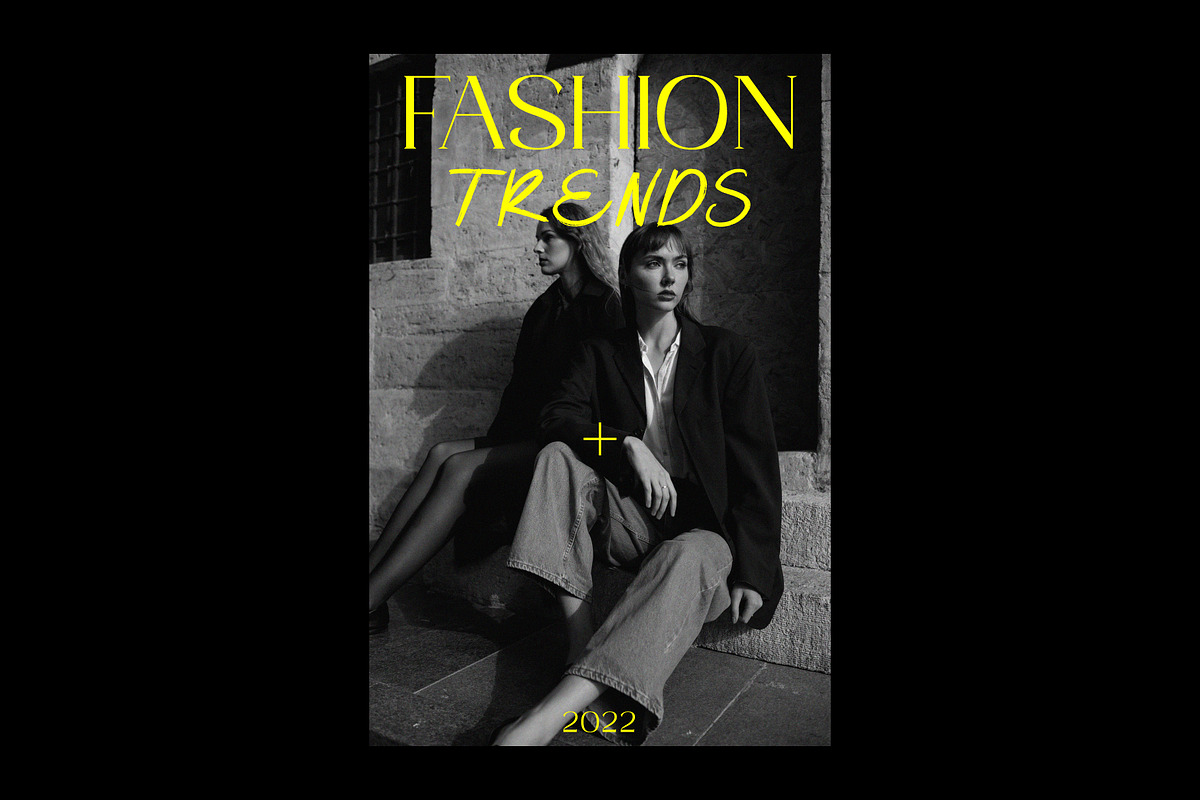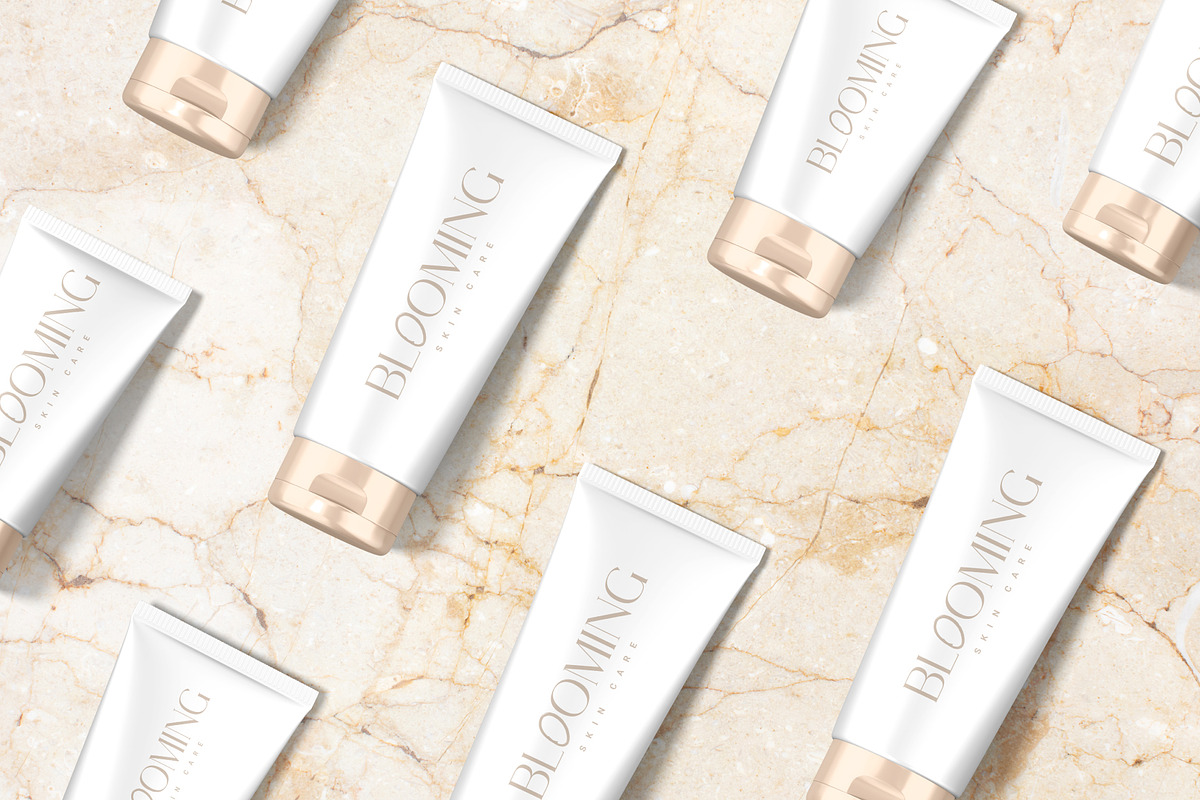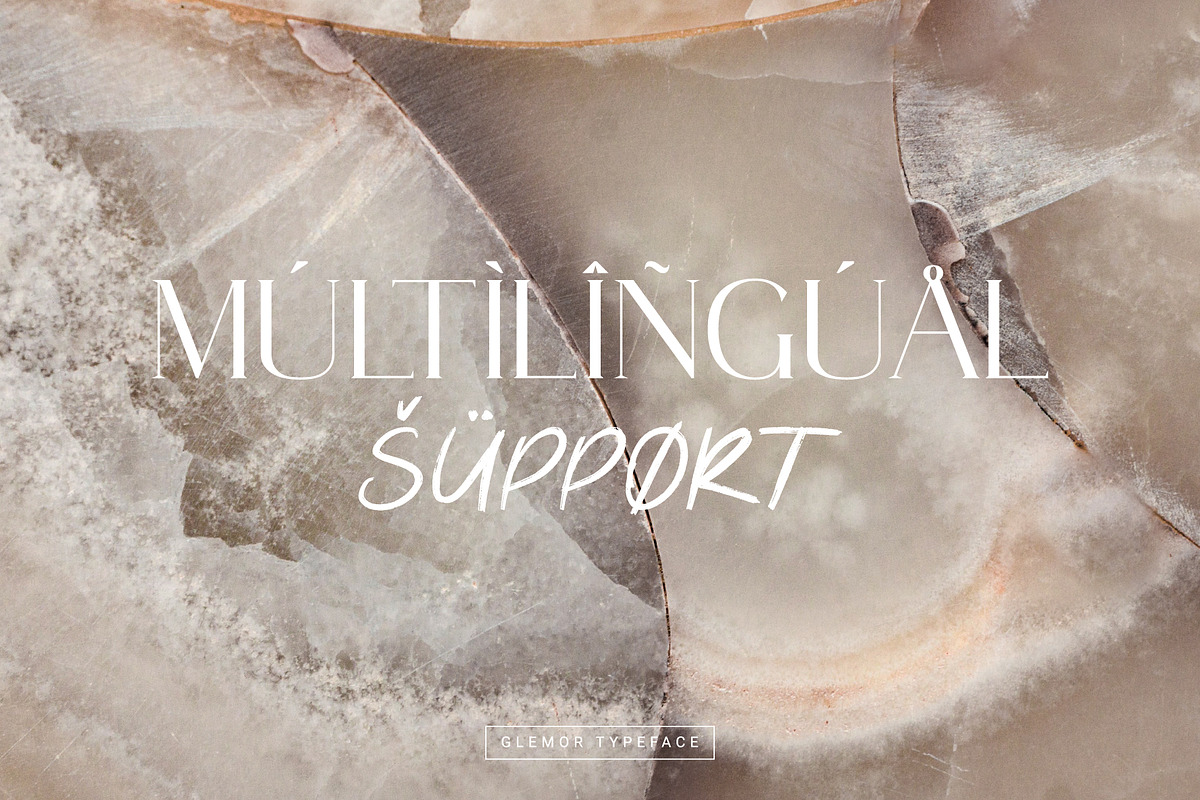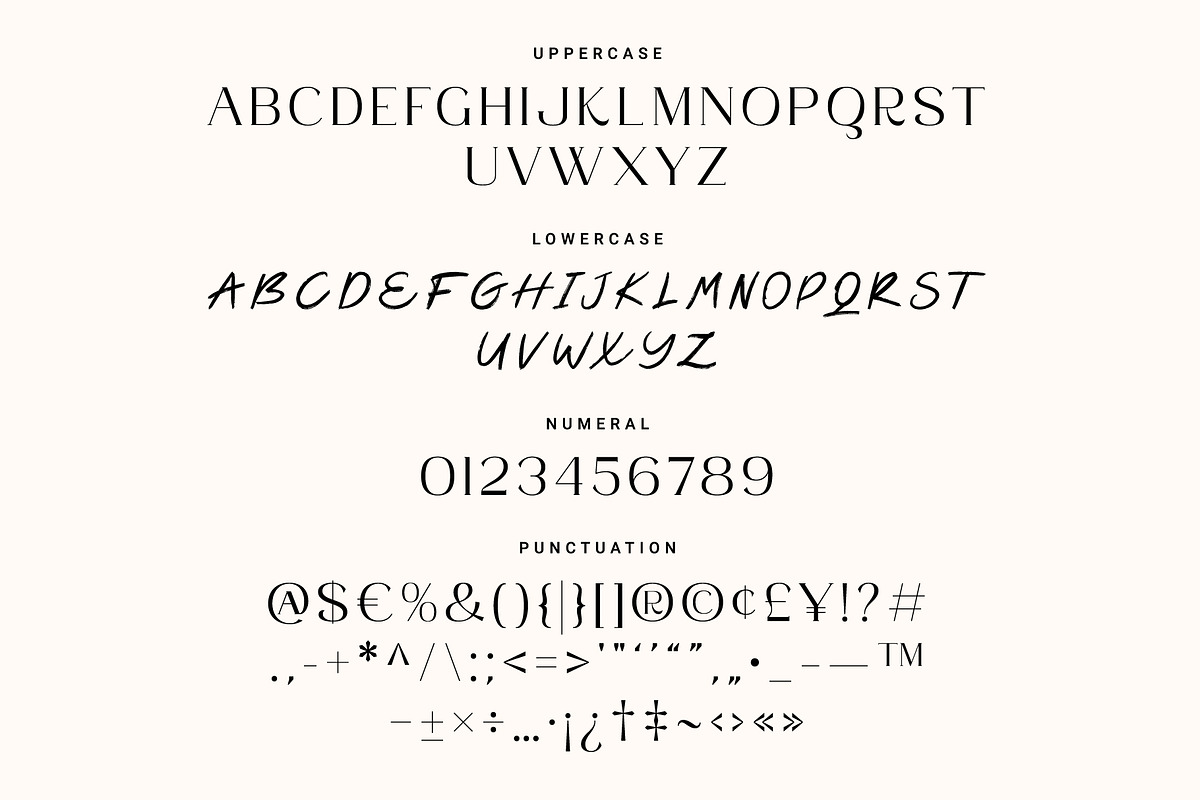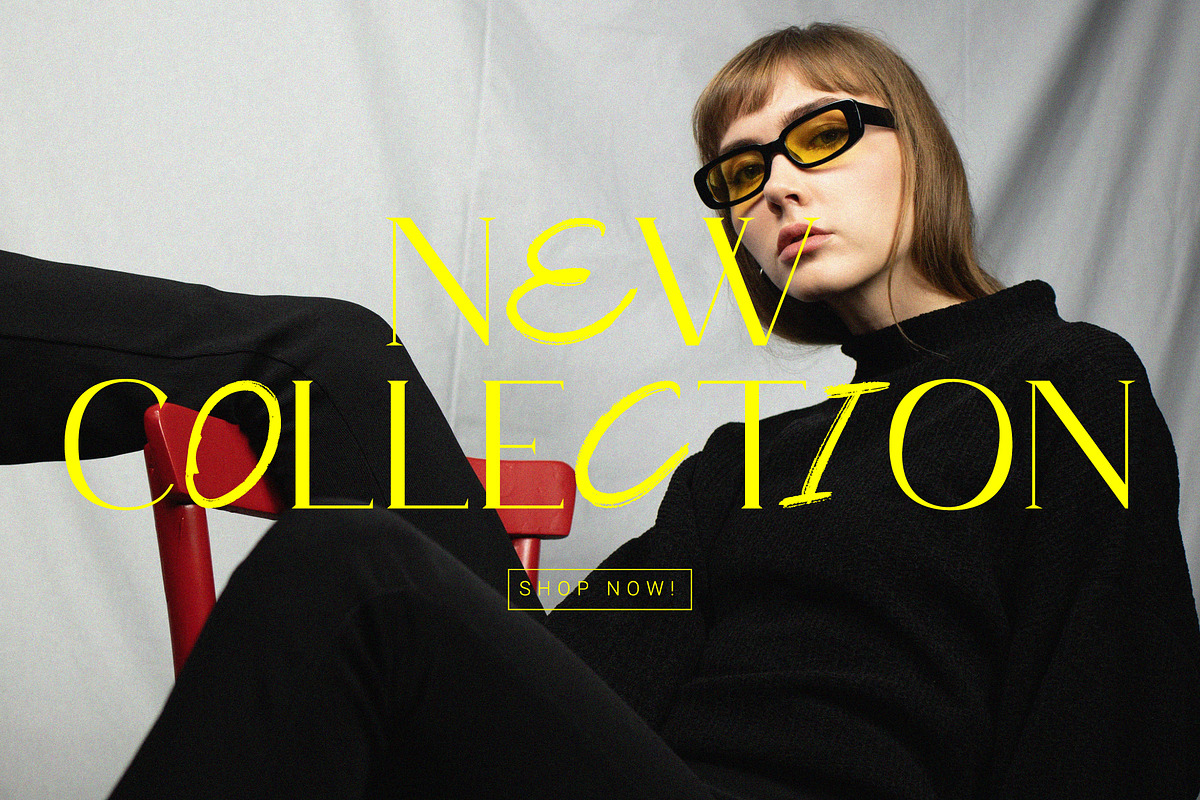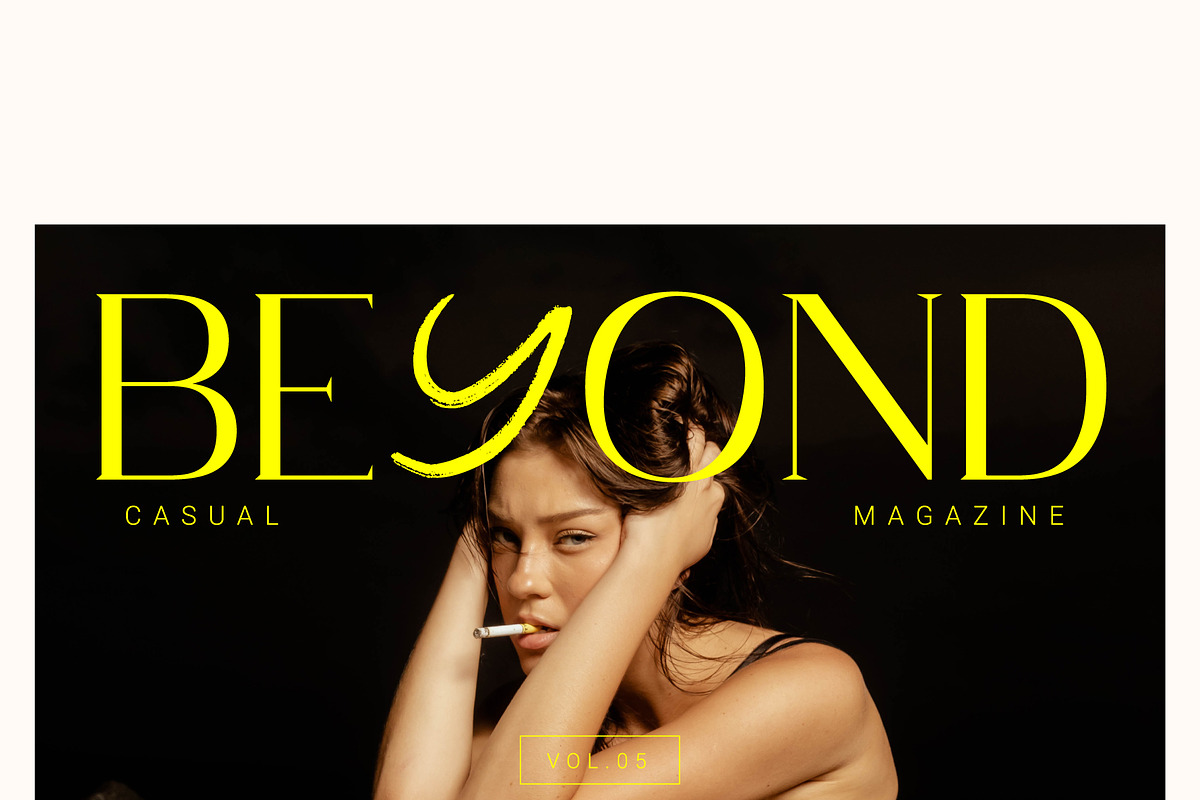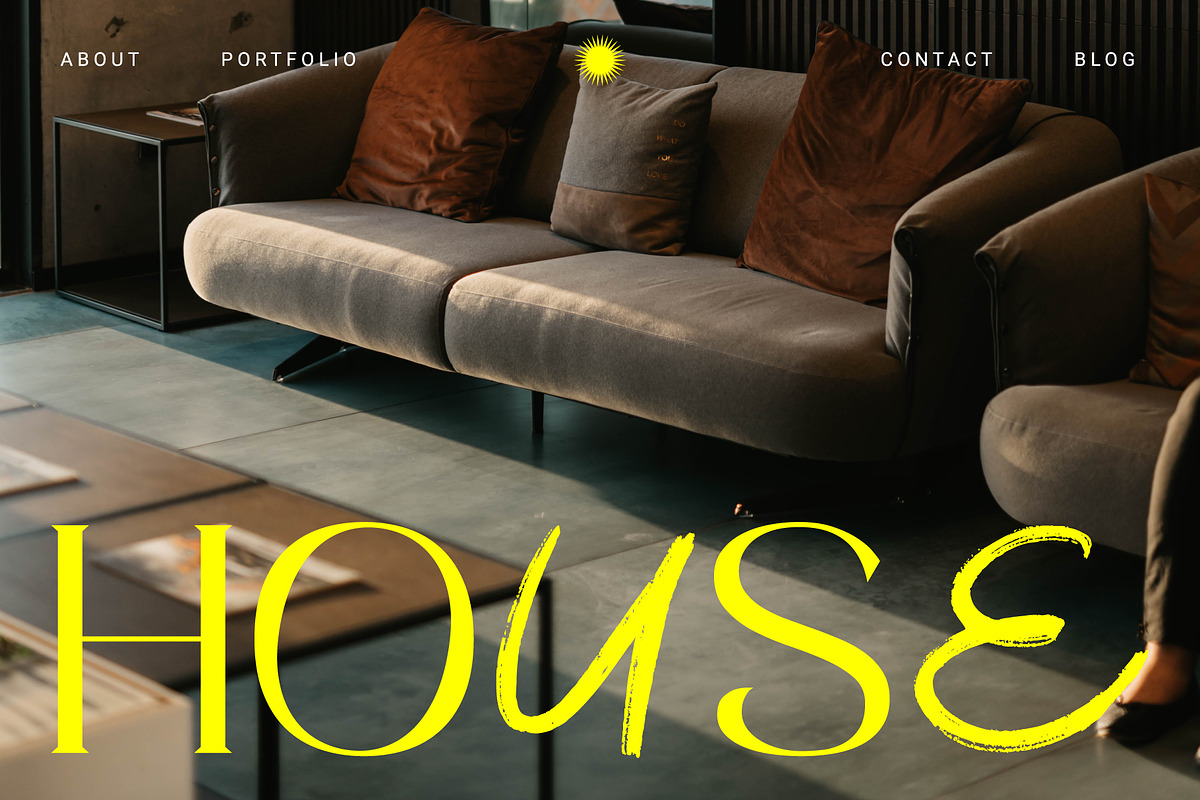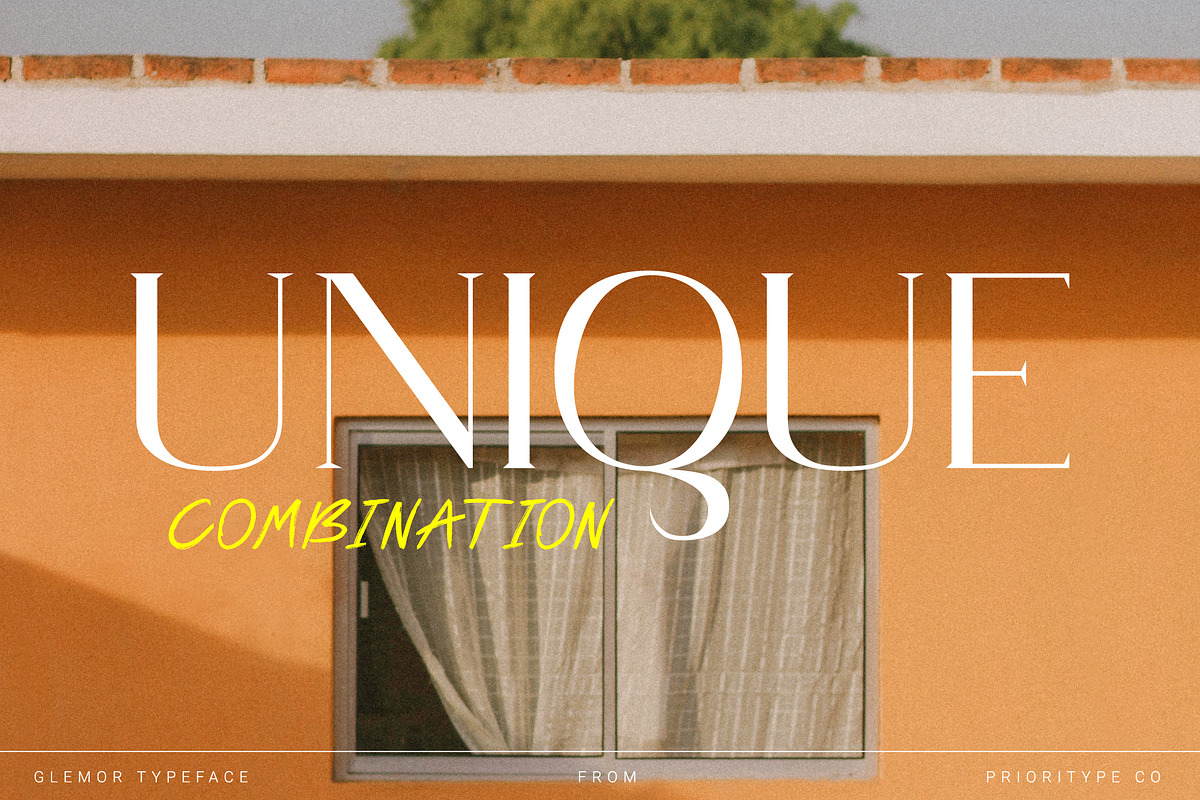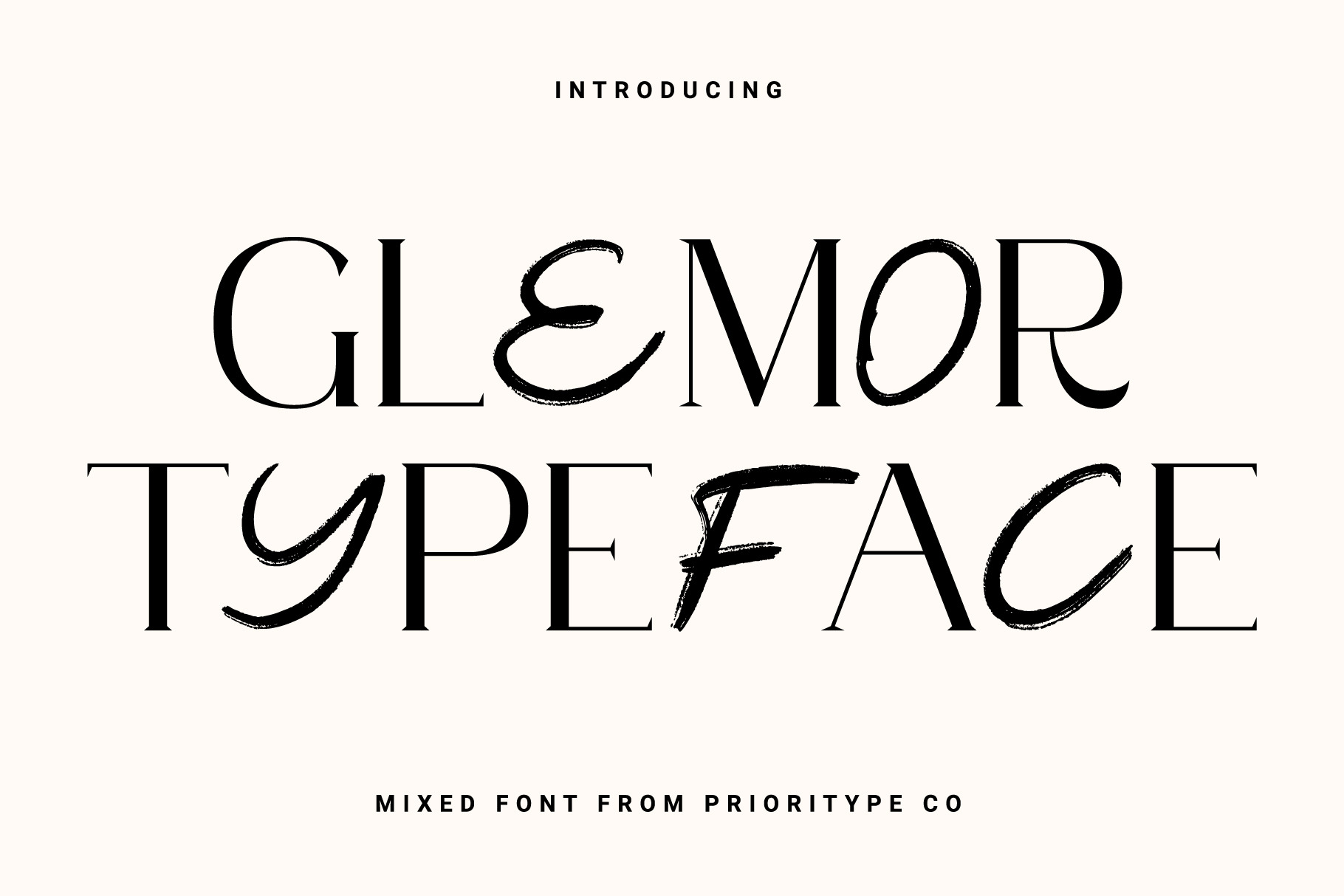
Glemor Typeface
Typeface inspired by youth fashion magazines and posters. With an interesting combination of serif shapes and handwriting brushes. Great for use in the design of posters, magazines, creative posts or landing pages.
- Features: Uppercase, Lowercase, Numeral, Punctuation & Multilingual.